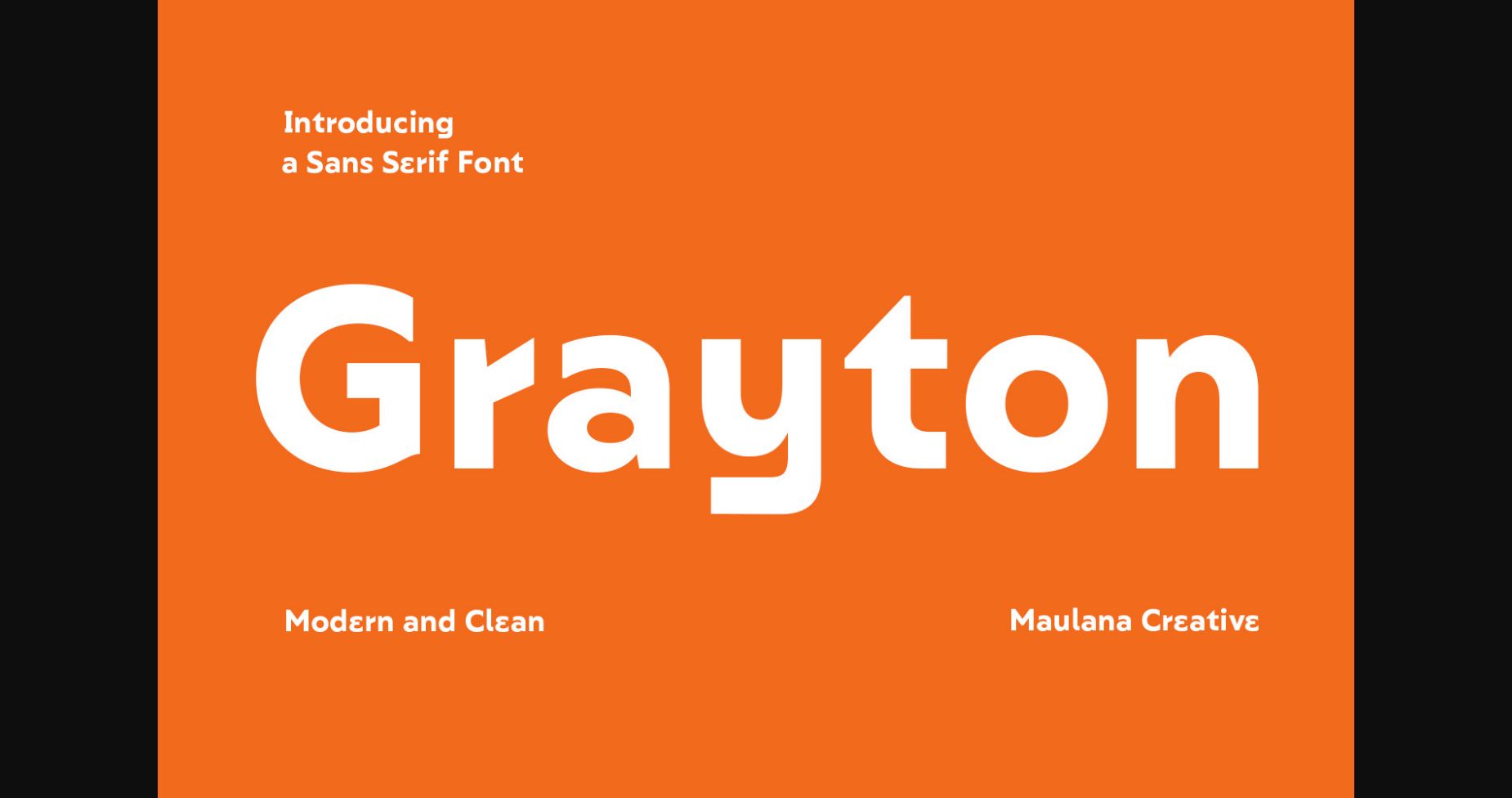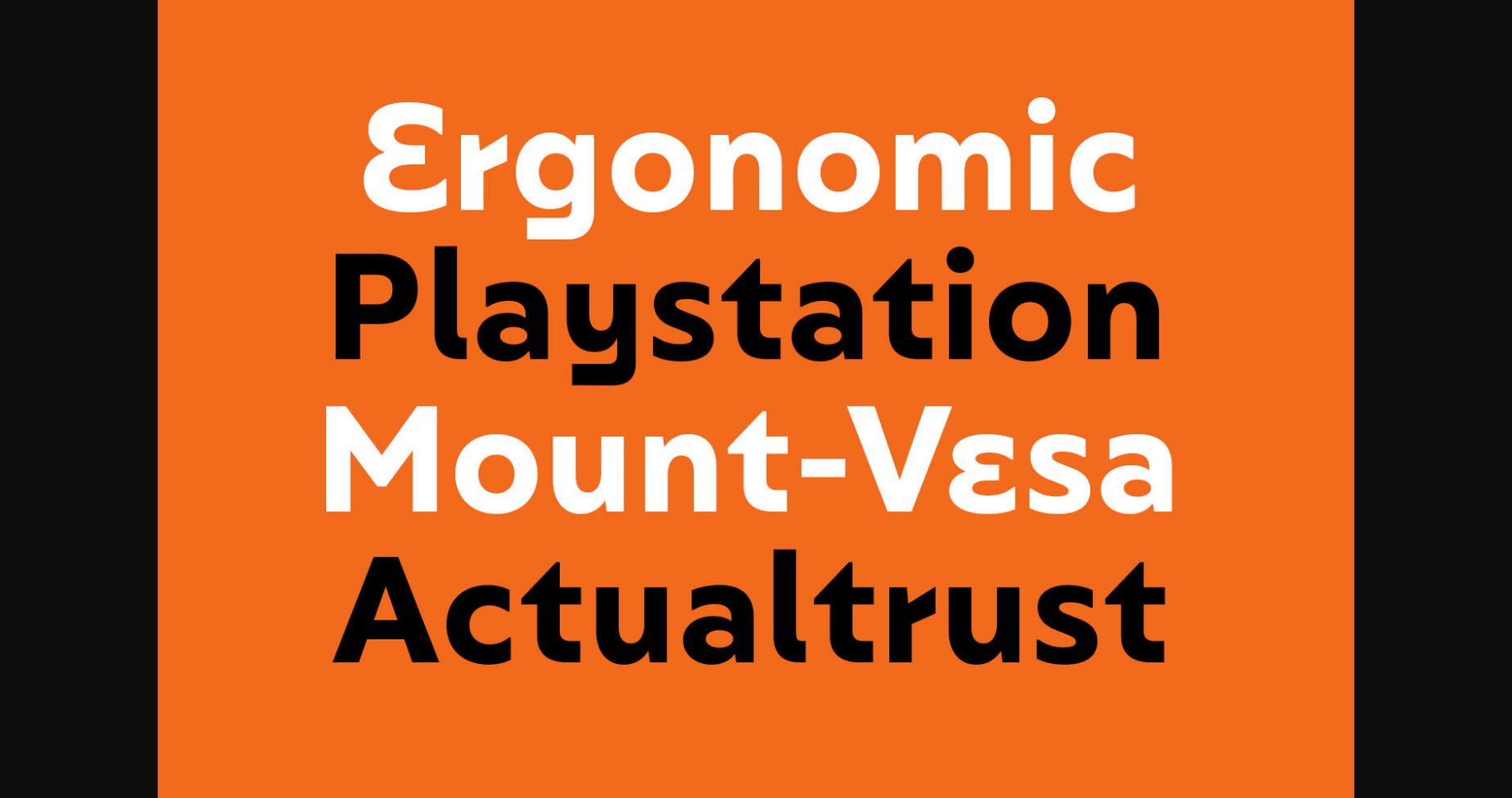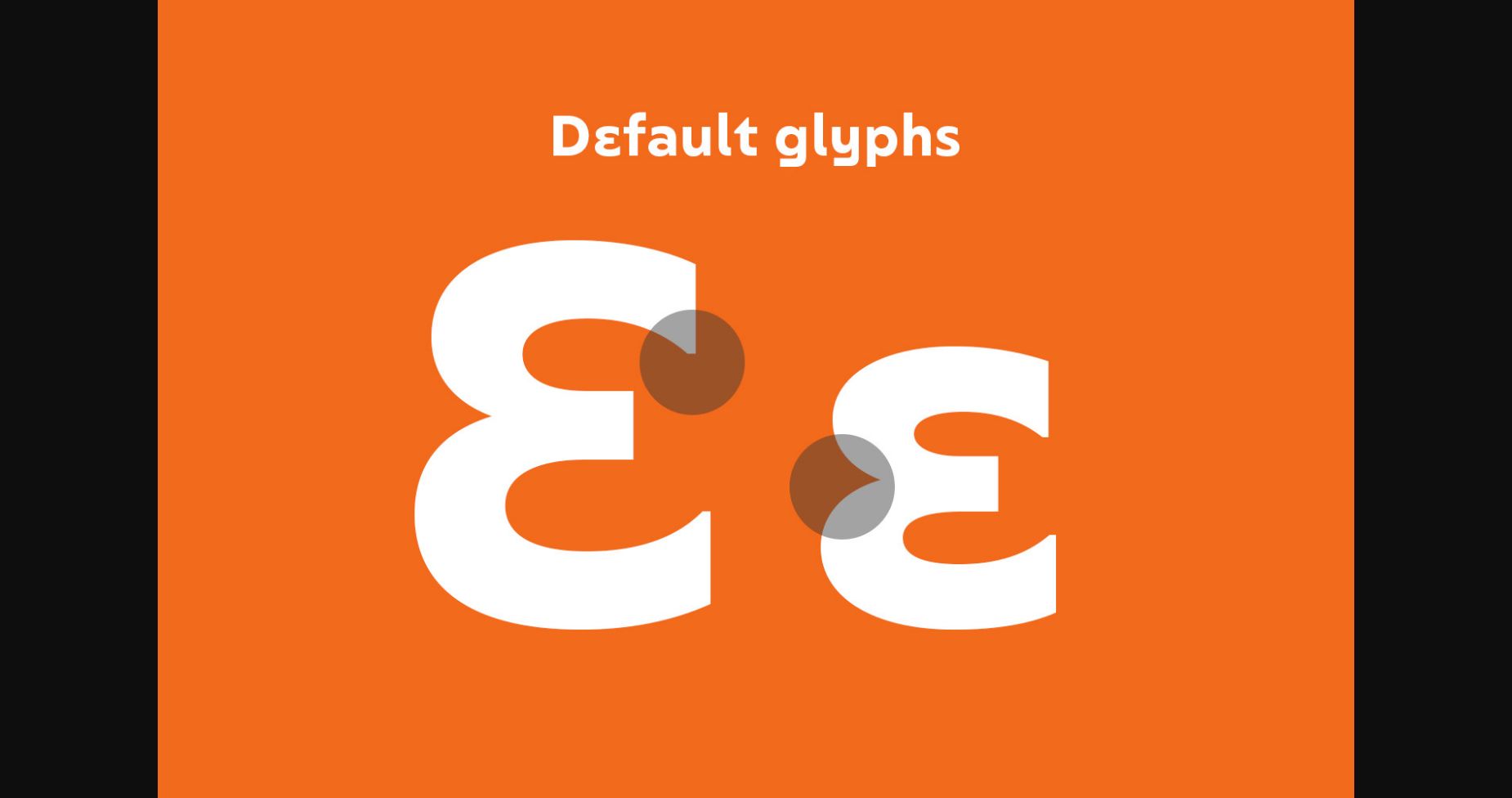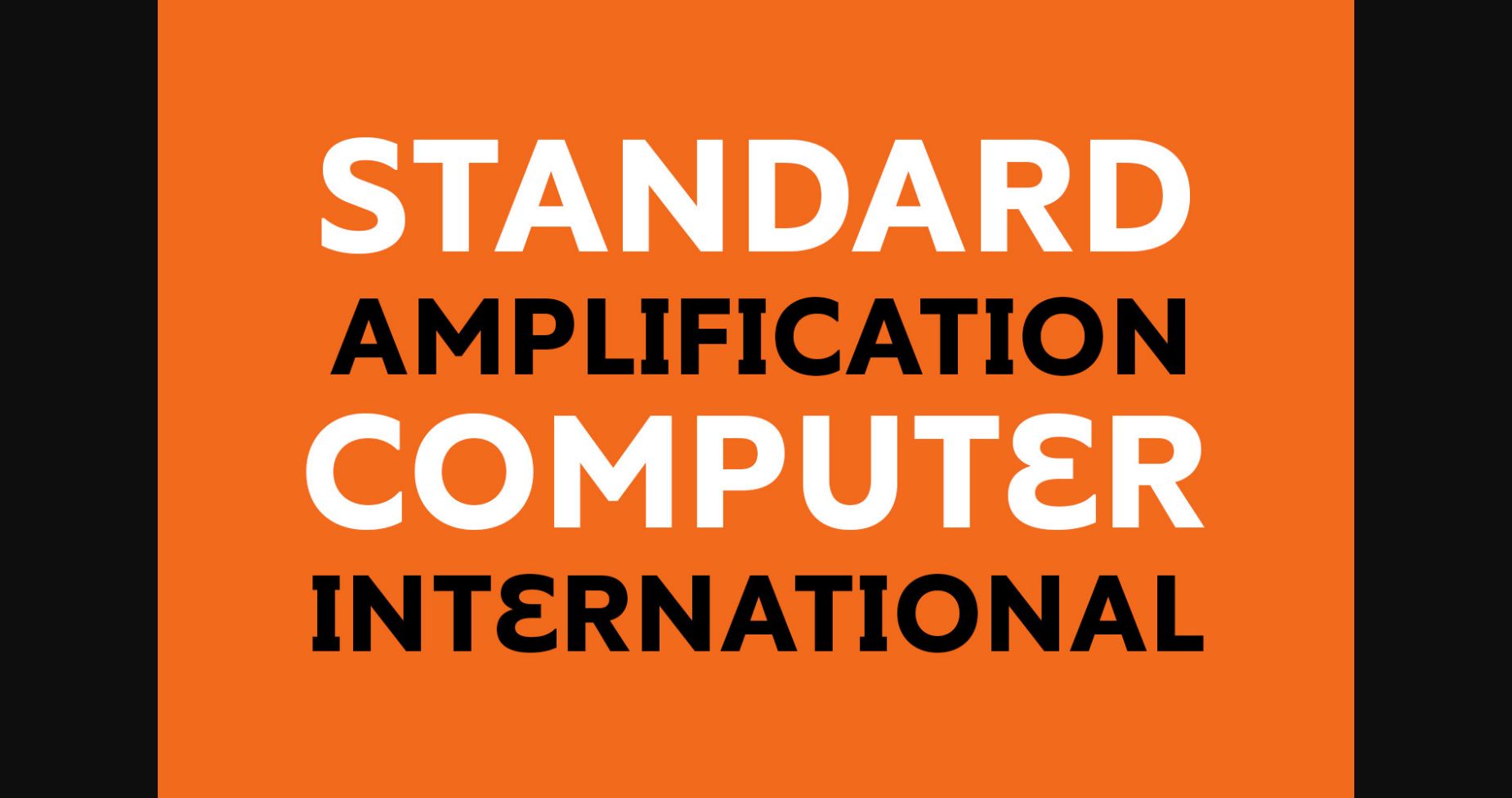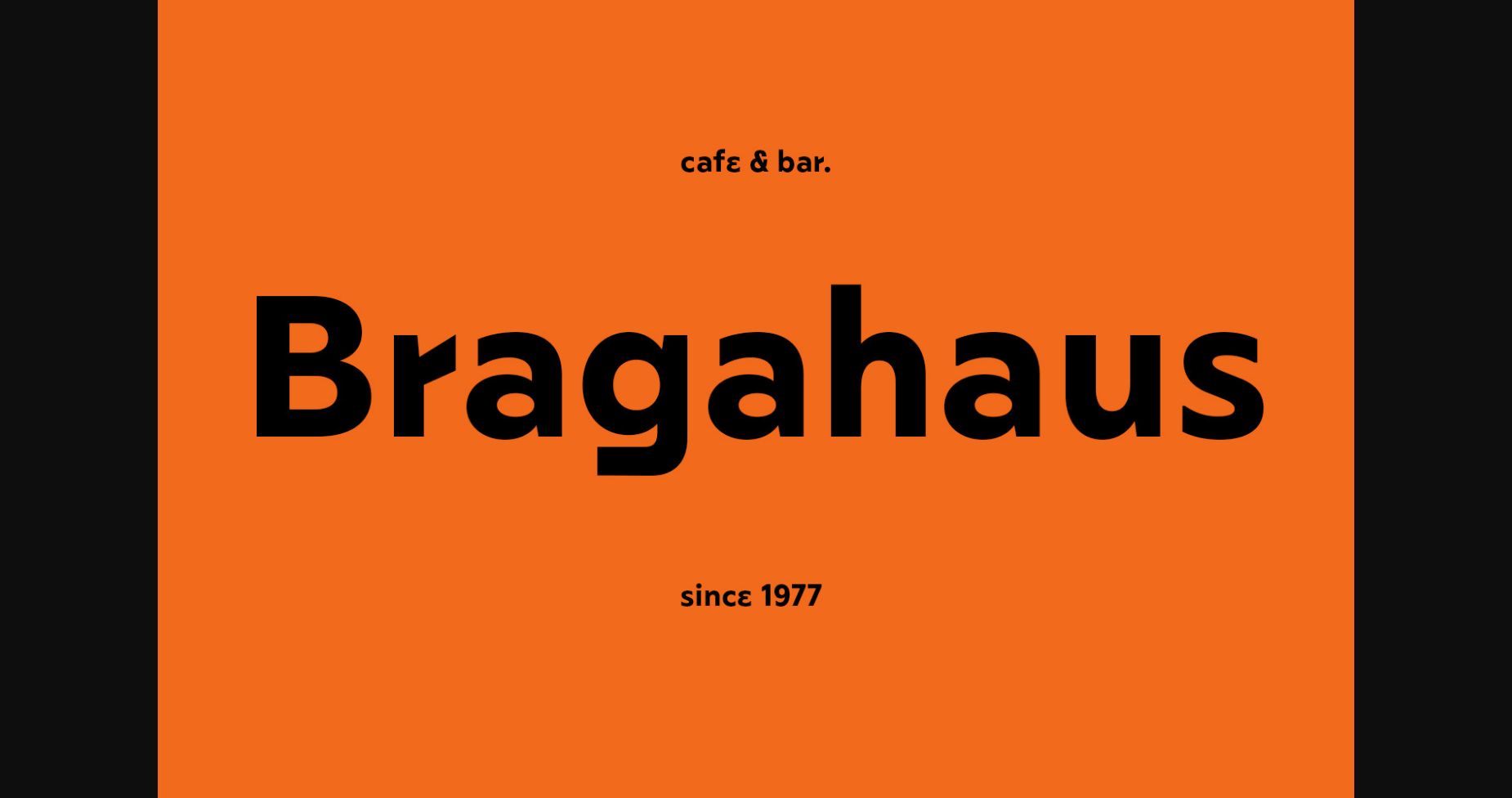
About Grayton Font
Grayton is a stunning and commanding sans-serif font, perfect for making a bold statement. Its sharp and angular lines create an impactful and authoritative aesthetic. Each letter is carefully crafted to give an impression of strength and sophistication.